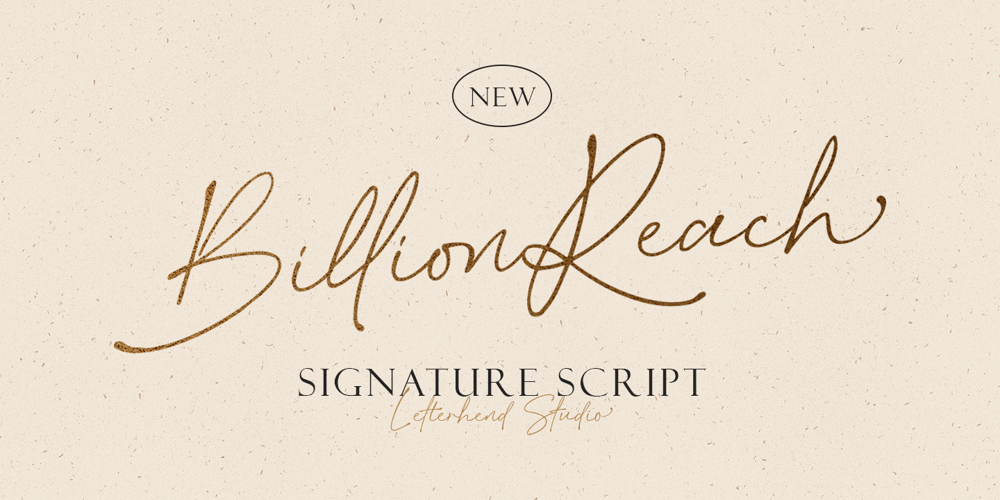
Billion Reach Font Family was designed by Hendry Juanda and published by Letterhend. Billion Reach contains 1 styles and family package options. Introducing, Billion Reach – A beautiful signature script based on manual hand writing. The stylistic alternate and the ligatures make this font looks a real hand writing instead of typing a font. This type of font perfectly made to be applied especially in logo, and the other various formal forms such as invitations, labels, logos, magazines, books, greeting / wedding cards, packaging, fashion, make up, stationery, novels, labels or any type of advertising purpose.Features : uppercase & lowercase numbers and punctuation multilingual alternates and ligatures PUA encoded We highly recommend using a program that supports OpenType features and Glyphs panels like many of Adobe apps and Corel Draw, so you can see and access all Glyph variations. How to access opentype feature : letterhend.com/tutorials/using-opentype-feature-in-any-software/Email us to letterhend@gmail.com if you need something! Happy Designing!